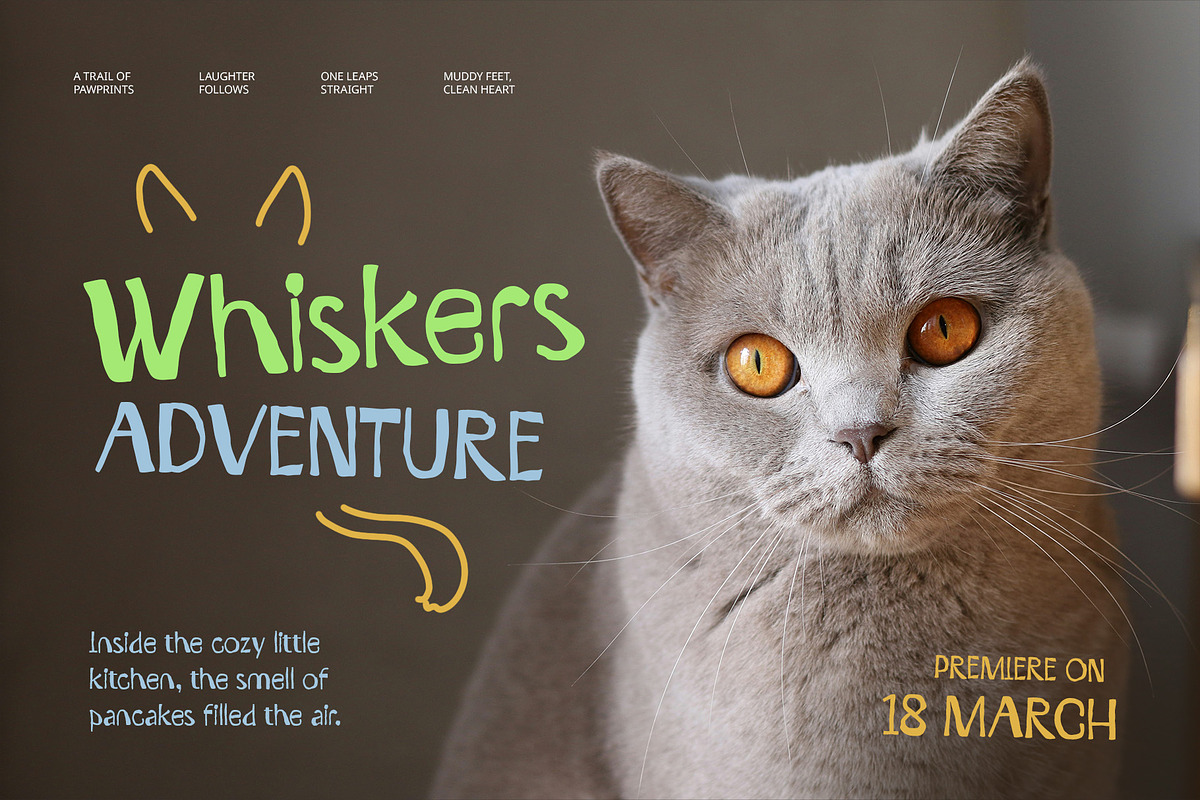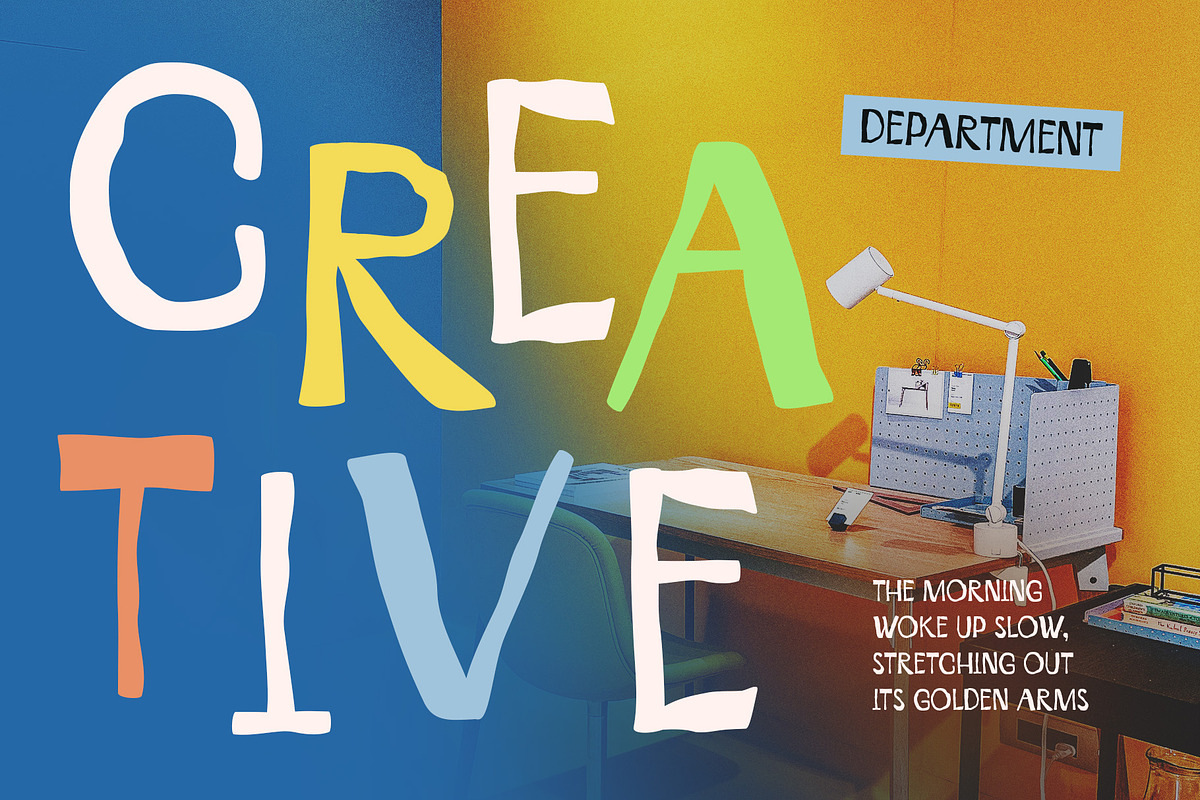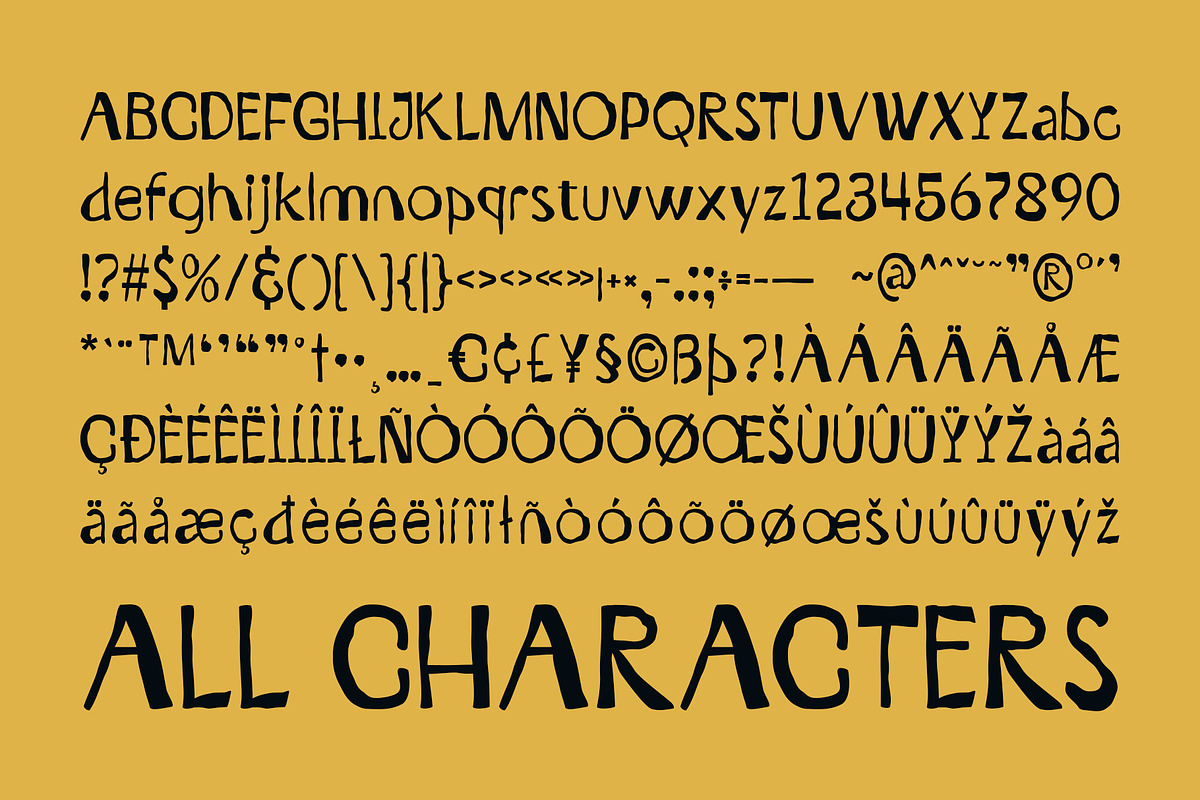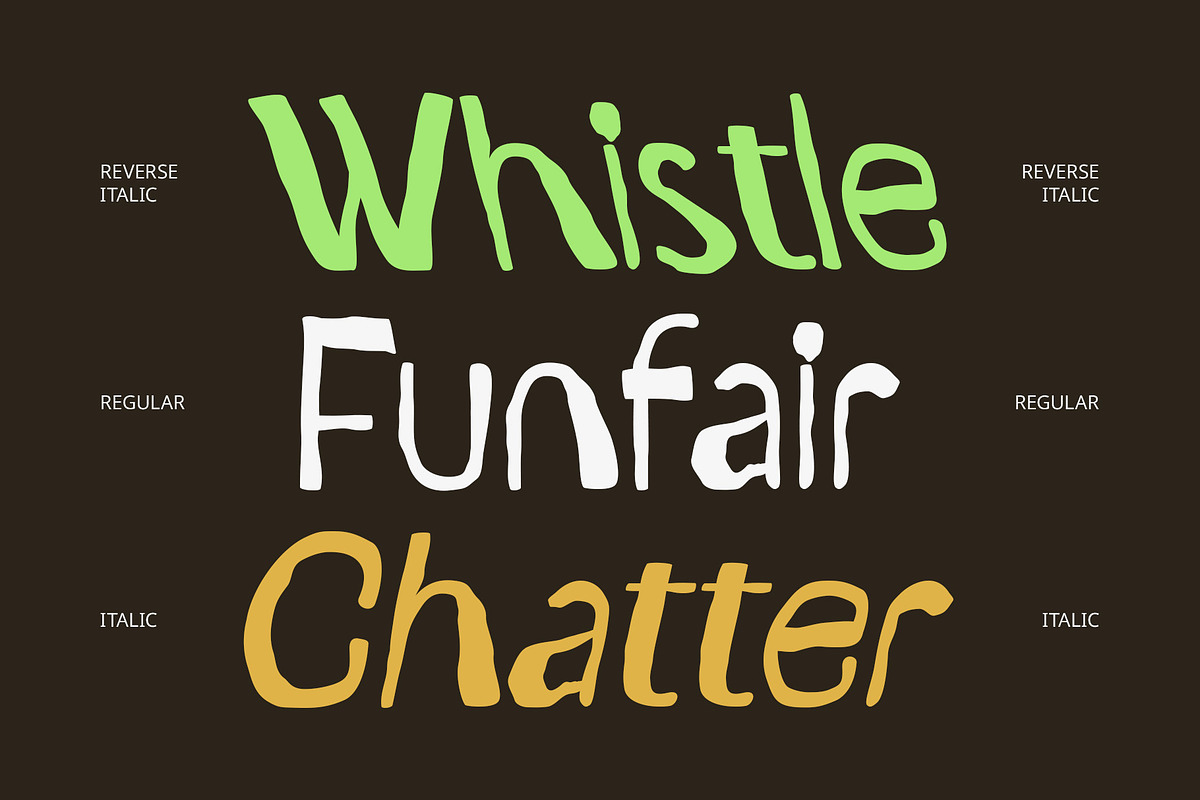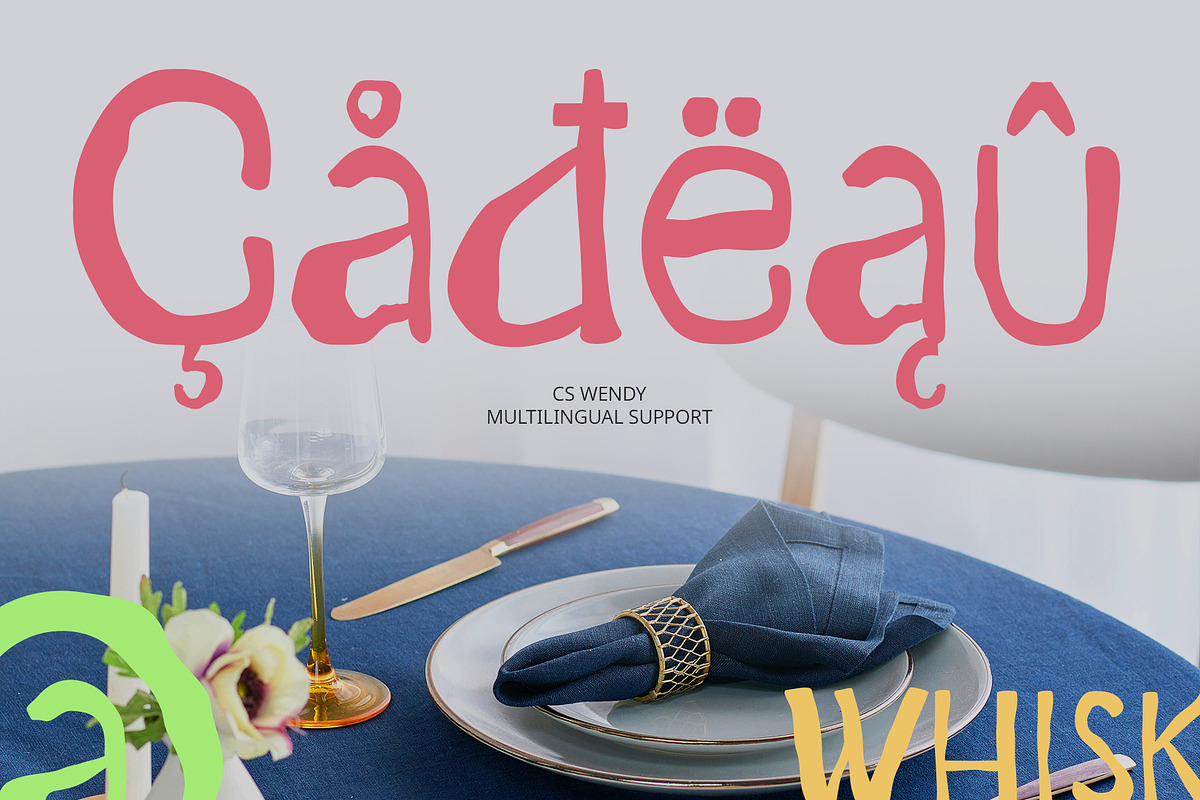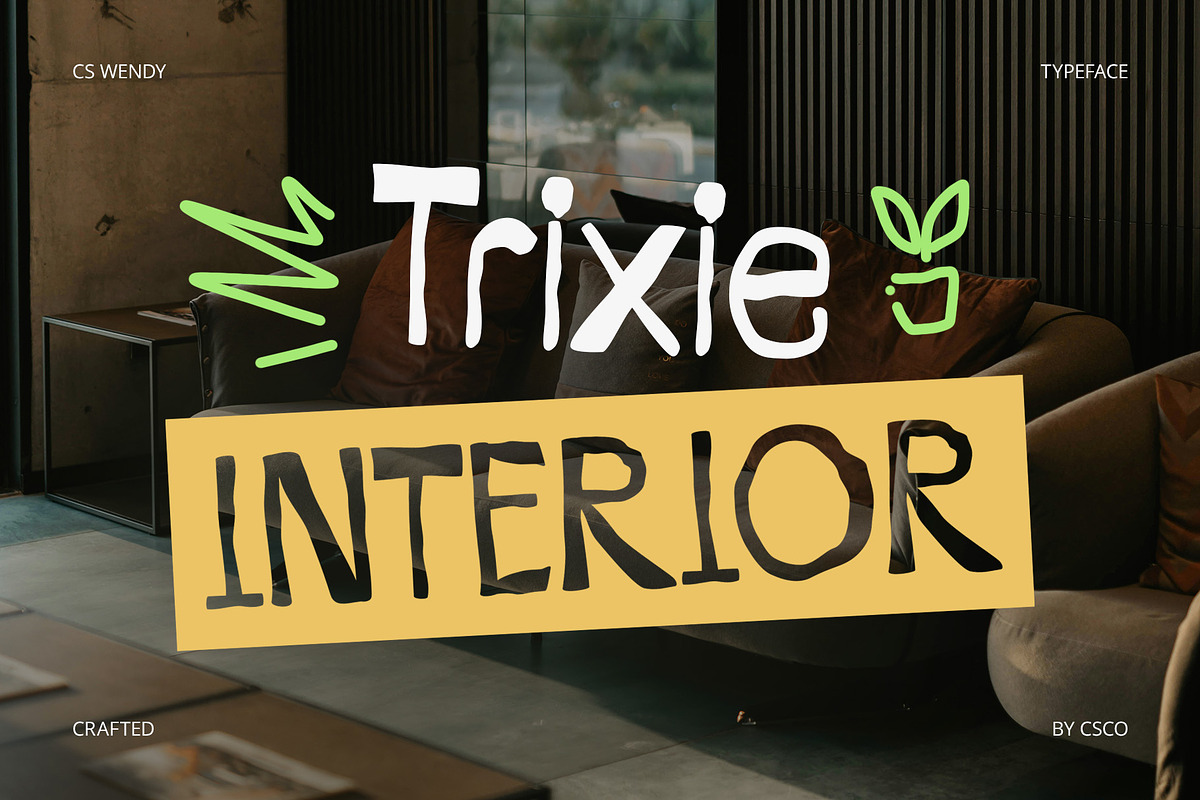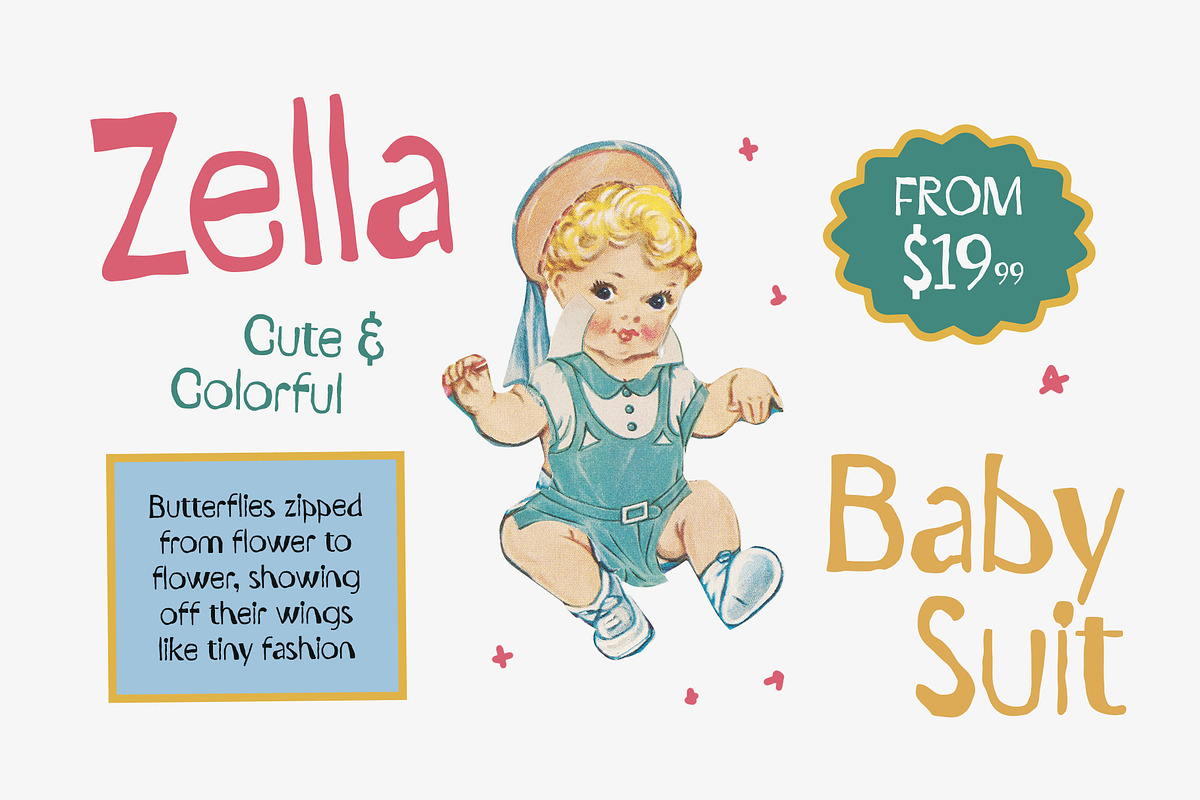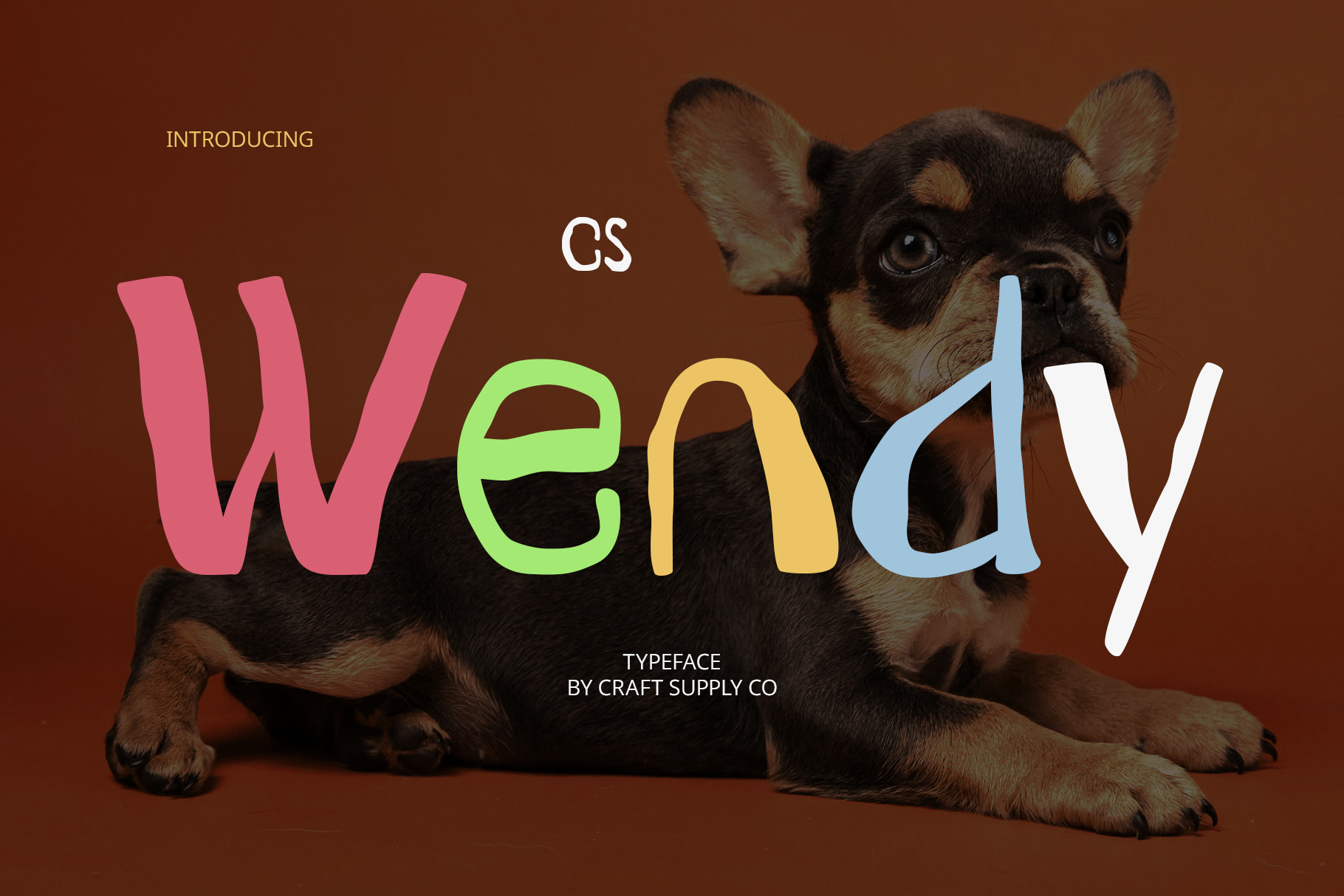
CS Wendy – Etchy Font
CS Wendy – Etchy Font: Playful, Funky, and Full of Imagination
Etchy Display Font with Wavy, Cheerful Shapes CS Wendy is a lively display font featuring hand-drawn, etchy lines and wavy, uneven forms that exude a funky and cheerful personality. Its playful strokes, irregular shapes, and sketch-like structure bring a sense of spontaneity and fun to any design.
Designed to Spark Creativity and Joy With its unconventional letterforms and free-spirited design, CS Wendy encourages imagination and storytelling. It’s a font that doesn’t take itself too seriously—perfect for creating a warm, engaging atmosphere. The quirky visual rhythm adds depth and movement, making it feel as though the letters themselves are dancing on the page.
Perfect for Children’s Media and Learning Tools Whether you’re designing book covers, educational posters, toys, activity sheets, or learning platforms, CS Wendy brings just the right amount of fun. It’s especially suited for projects that require a friendly and approachable look, helping young audiences connect with content in a visually exciting way.
Ideal for Whimsical Branding and Creative Projects Beyond children’s materials, CS Wendy fits seamlessly into playful branding, whimsical packaging, event themes, and more. If your project calls for personality, expression, and charm, this font delivers with style. It’s the perfect choice for brands that want to express creativity, imagination, and a light-hearted spirit.